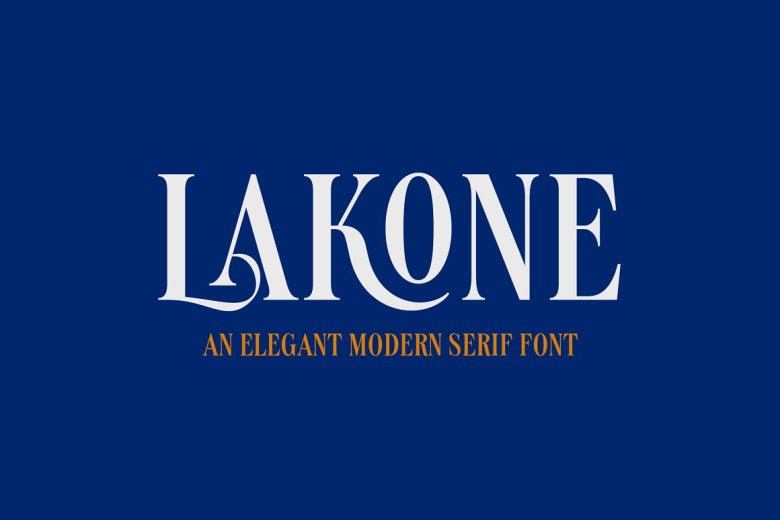
Lakone Font
Lakone font is an elegant serif font that adds sophistication to your designs. With narrow characters and sleek aesthetic, Lakone is perfect for titles and headlines.
Lakone font is more than just an attractive font; its extensive Opentype features include numerous ligatures and swashes as well as alternative characters to help unleash your creative expression while honing your typography skills. These options allow for endless ways to customize designs while adding a sense of sophistication.
Lakone will make an unforgettable impression. Perfect for creating magazine covers or logos, Lakone stands out with its versatility and allure; leaving audiences spellbound. Lakone elevates projects while making an exciting design statement.
Lakone Serif Font